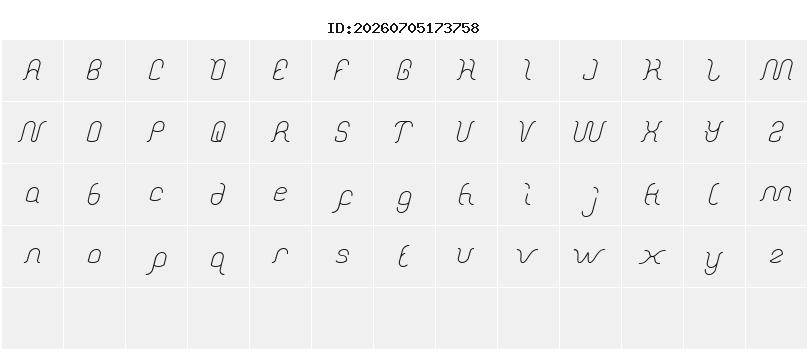
Dolphin OCEAN WAVE Preview
• Font Name: Dolphin OCEAN WAVE
• Full Font Name: Dolphin OCEAN WAVE
• Version: Version 1.00 March 13, 2012, initial release
About Dolphin OCEAN WAVE.ttf
Dolphin OCEAN WAVE.ttf is a modern, elegant sans-serif font designed for ultimate readability and visual harmony. Perfect for branding, headlines, web design, and print materials.